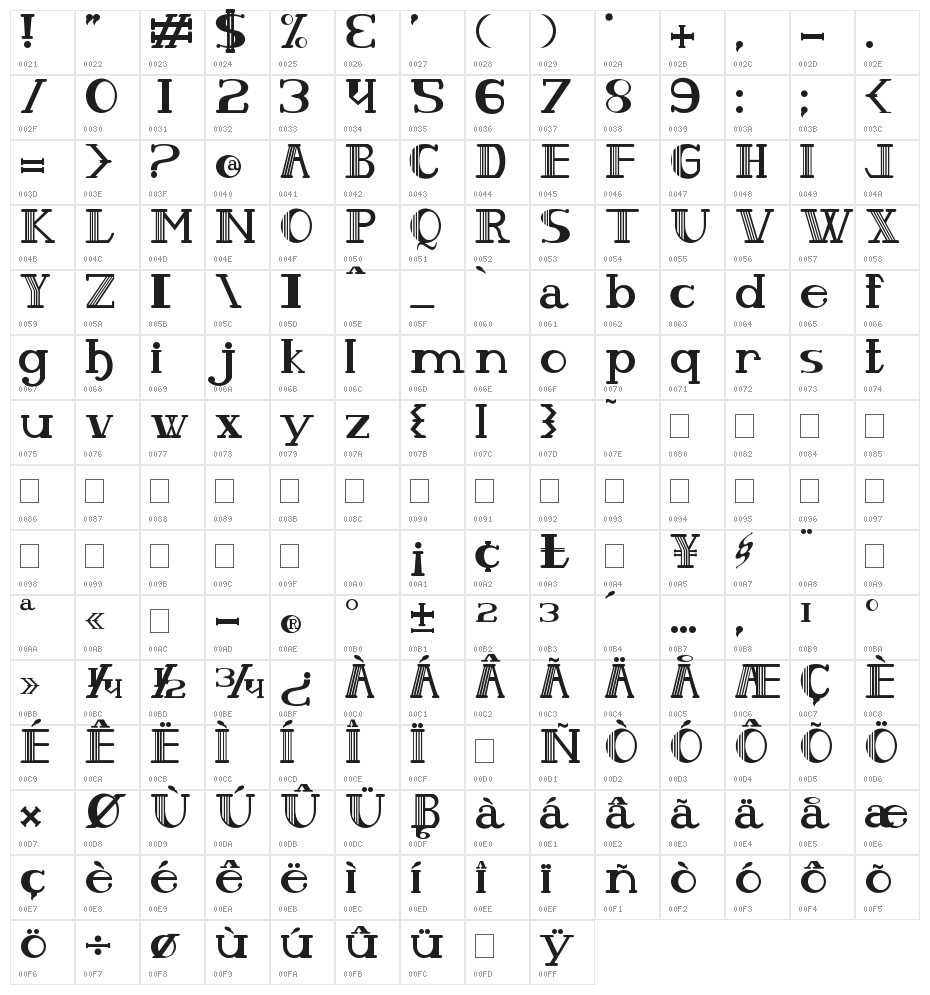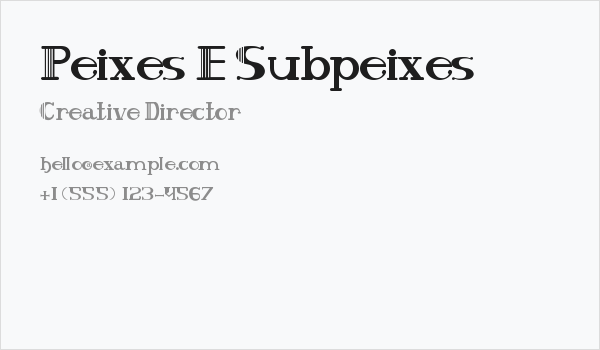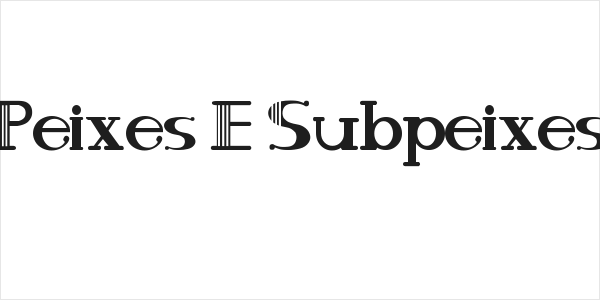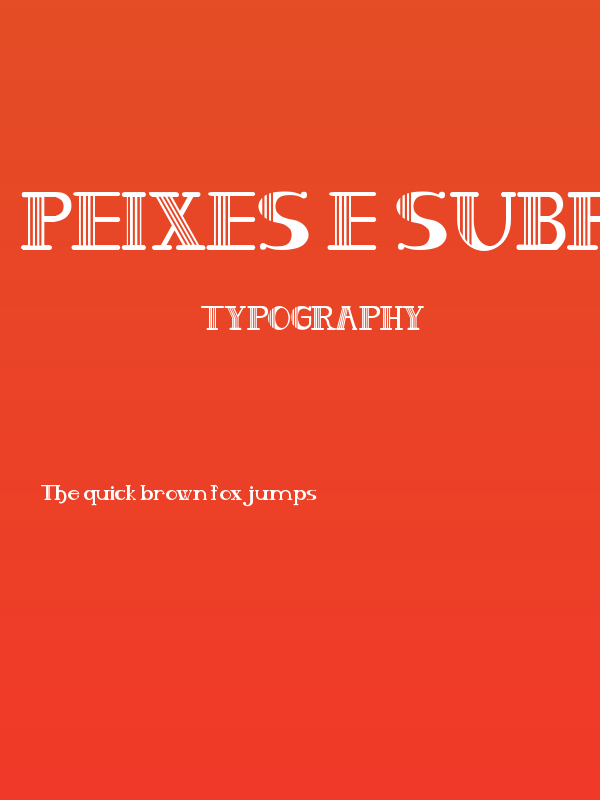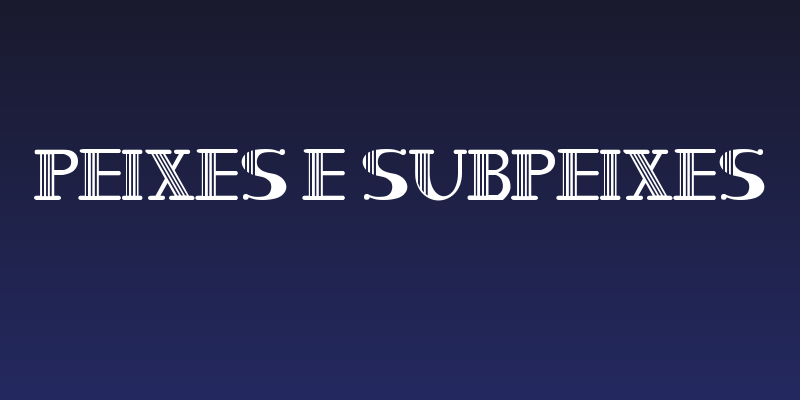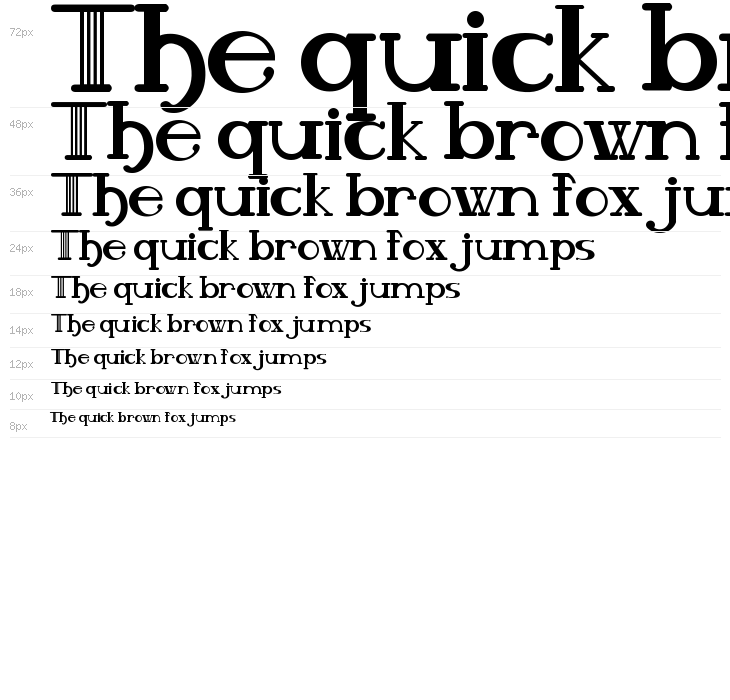
Peixes E Subpeixes Font
Peixes E Subpeixes Description
This font features a unique blend of modern and vintage styles, characterized by its bold, decorative elements. The uppercase letters are particularly striking, with vertical lines and geometric shapes that add a sense of depth and dimension. The lowercase letters maintain a more traditional serif style, providing a nice contrast to the ornate uppercase. The numerals are bold and distinctive, with a playful yet sophisticated appearance. Special characters are designed with the same attention to detail, making them stand out while remaining cohesive with the overall design. This font is perfect for projects that require a touch of elegance and creativity.
| Overall Style | Modern, Vintage |
| Proposed Projects | Ideal for branding, posters, and editorial design where a strong visual impact is desired. |